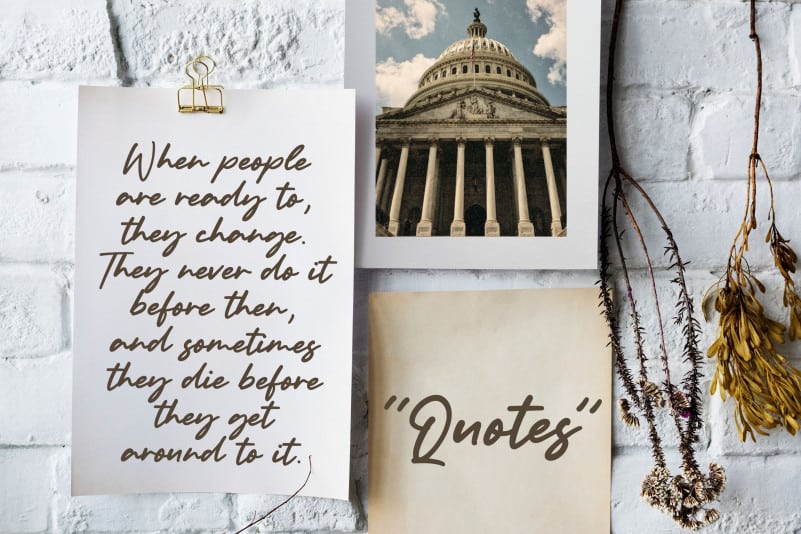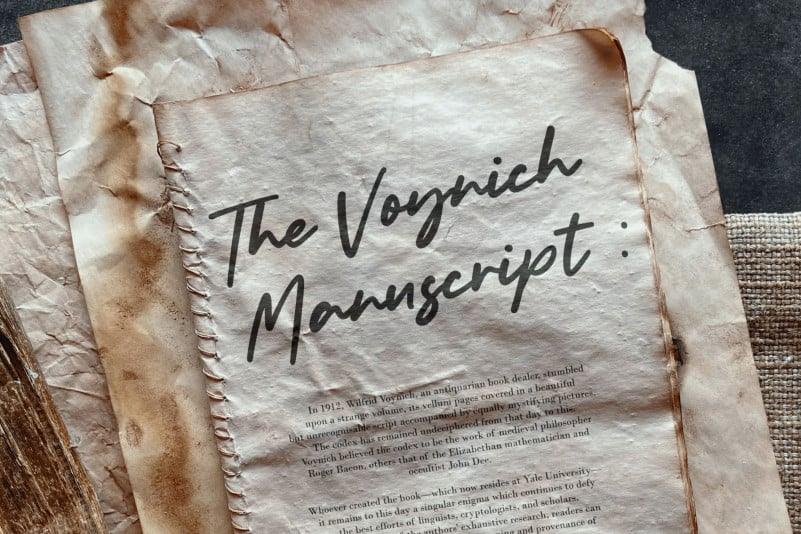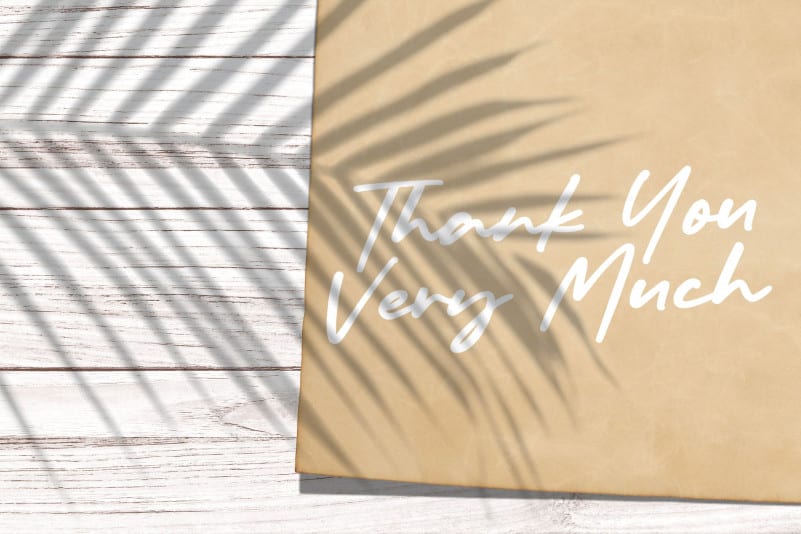
Bolognaise Monoline Handwritten Font
Proudly Present, Bolognaise Monoline Handwritten Font.
Bolognaise is a Monoline Handwritten font.
Bolognaise is perfect for product packaging, branding project, megazine, social media, wedding, or just used to express words above the background.